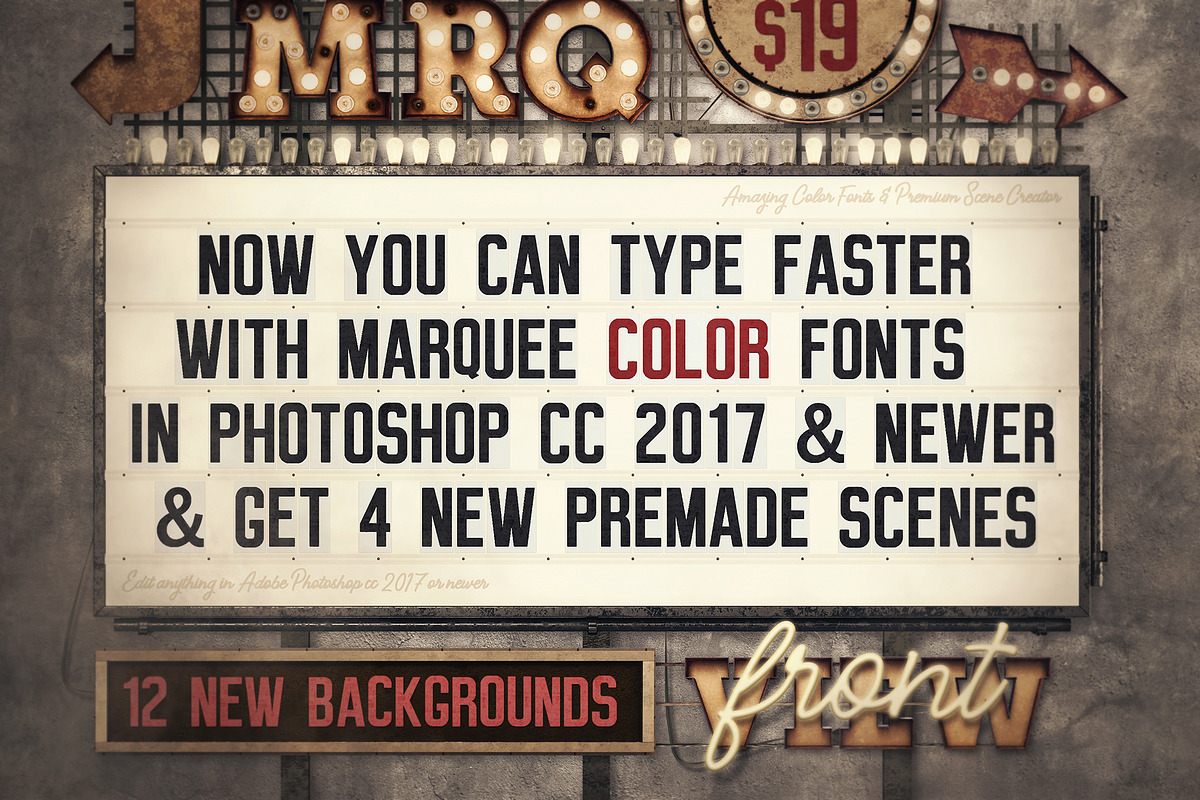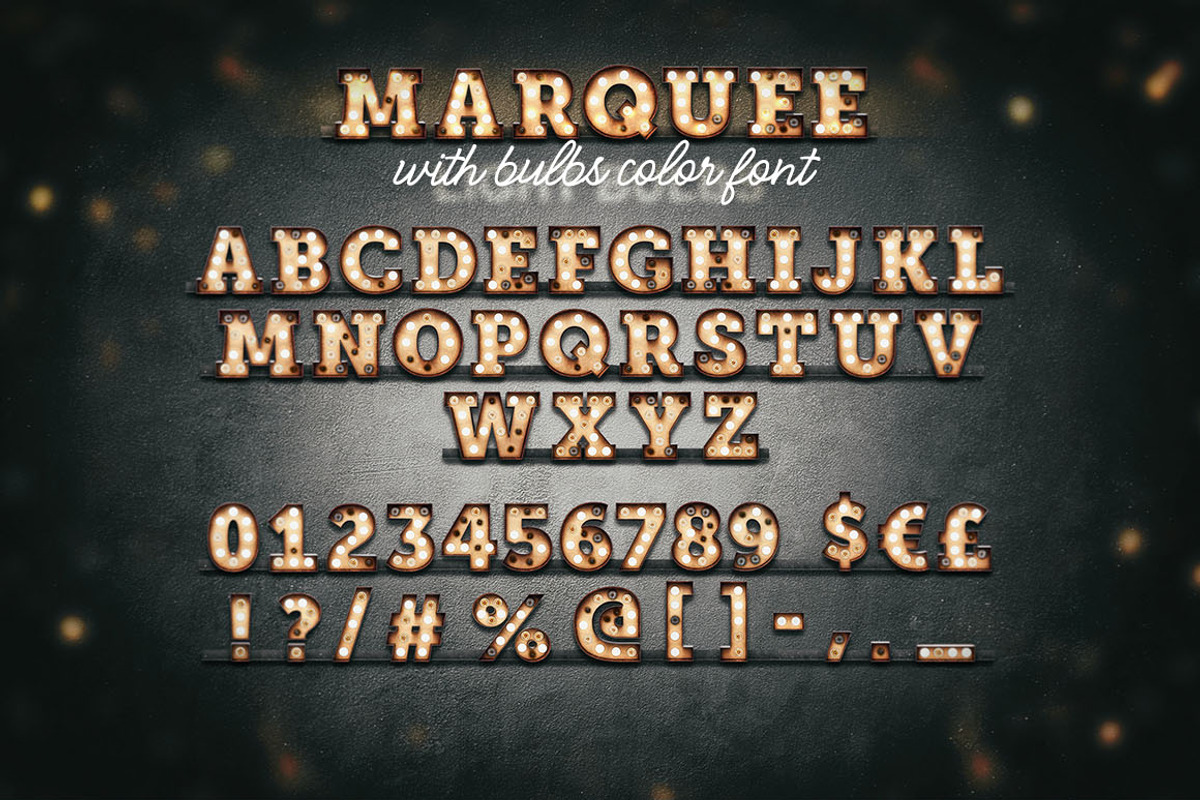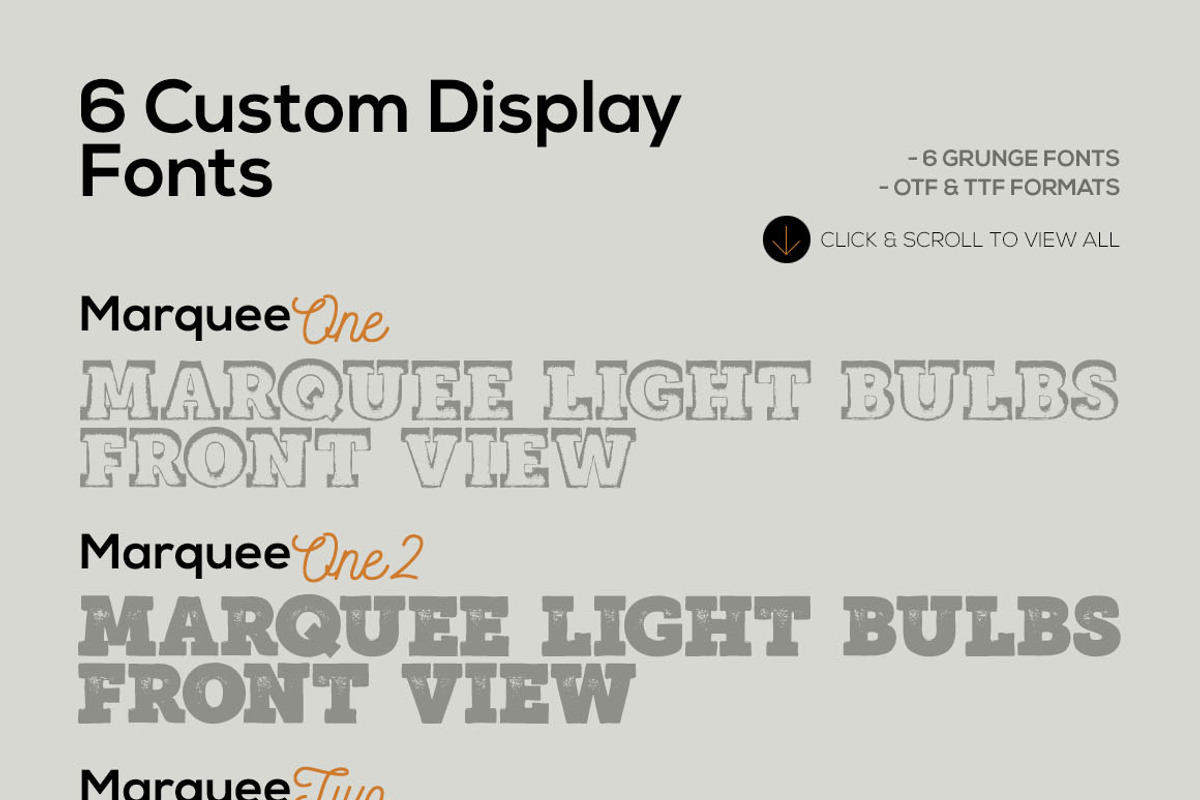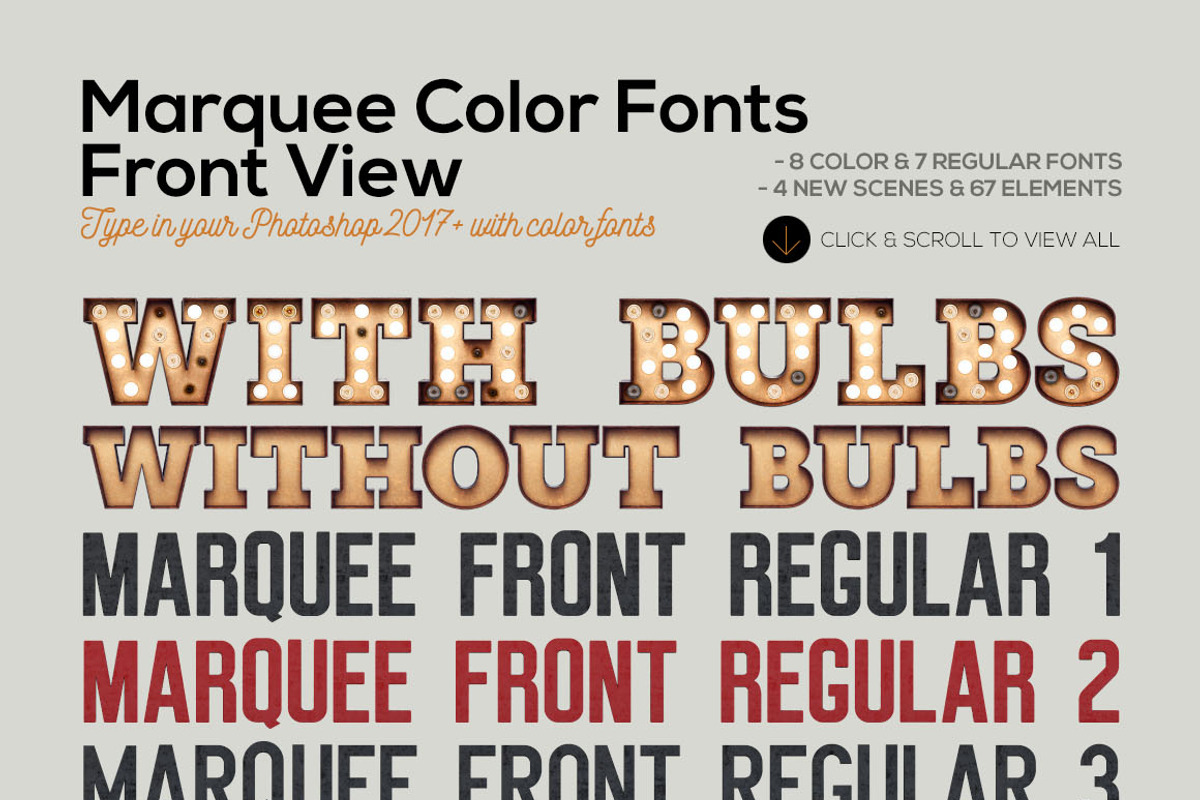
Marquee Front View - Color Fonts
If you like our Marquee Front View Toolkit you need to check this bundle :) With 8 color OTF fonts, 6 regular fonts from 1st bundle and 1 new script font, 12 new backgrounds, 4 new premade scenes & 67 items and elements (some new and some color updated).
Why Marquee Front View - Color Fonts is worth a look
Marquee Front View - Color Fonts by TVartworks fits naturally into Branding, posters, packaging, typography.